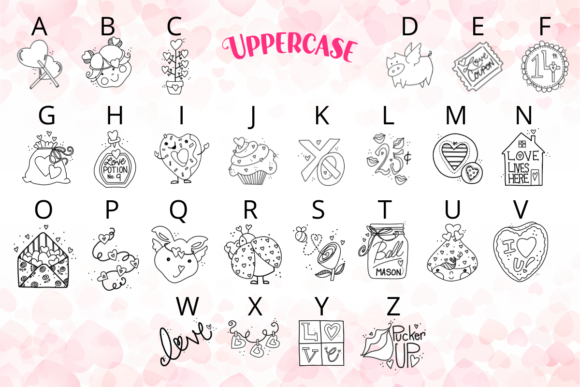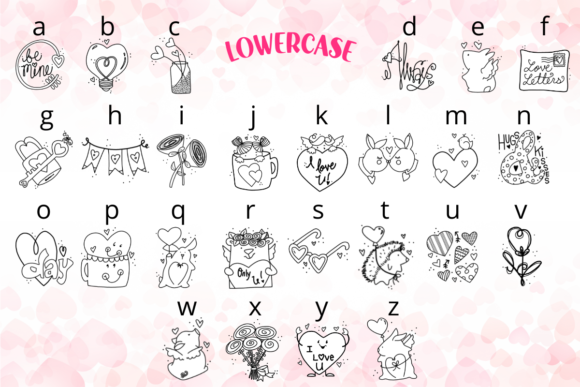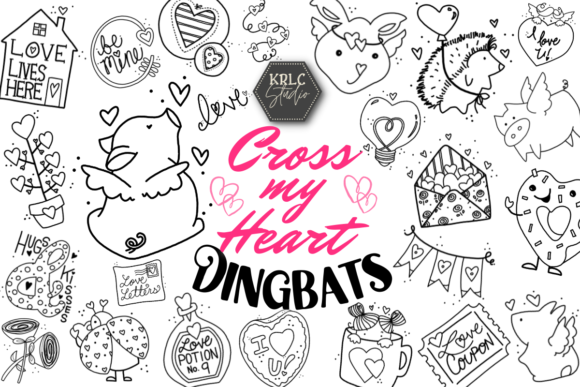
About Cross My Heart Font
Cross My Heart is a delightful and charming dingbats font specifically designed to enhance your Valentine’s Day creations. With its unique and adorable characters, this font brings an extra touch of cuteness to all your Valentine projects, including cards, programs, posters, scrapbook pages, and merchandise designs.
When you incorporate Cross My Heart into your designs, you instantly elevate the romantic and heartfelt atmosphere. The font’s intricate and lovable symbols, such as hearts, cupids, lovebirds, and romantic motifs, capture the essence of Valentine’s Day and add a whimsical and playful element to your creations.
Whether you’re creating personalized Valentine’s Day cards for loved ones, designing event programs for romantic celebrations, crafting eye-catching posters to promote Valentine’s Day events, or preserving precious memories in a scrapbook, Cross My Heart adds a touch of sweetness and joy to your projects.
Additionally, if you’re looking to create merchandise for Valentine’s Day, such as t-shirts, mugs, or accessories, Cross My Heart offers a wide range of delightful elements that can be incorporated into your designs. From romantic messages to charming symbols, this font allows you to create unique and captivating merchandise that resonates with the spirit of love and affection.
Cross My Heart is not limited to Valentine’s Day projects alone. Its versatility extends to other romantic occasions throughout the year, such as anniversaries, weddings, or special moments shared between loved ones. By utilizing this font, you can infuse your designs with a delightful and heartwarming touch.
Embrace the cuteness factor of Cross My Heart and witness how it transforms your Valentine’s Day creations into something truly special. This font’s beautiful and intricate dingbats characters are designed to evoke feelings of love, joy, and warmth, making your designs more captivating and memorable.
Incorporate Cross My Heart into your creative projects, and let the charm and romance of this dingbats font elevate your Valentine’s Day creations to new heights.